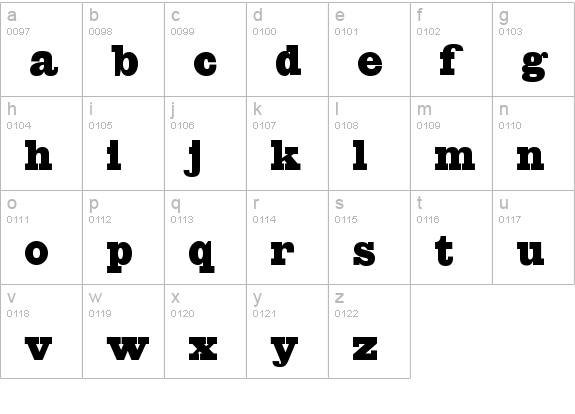
EgizianoClassic-BlackOL Font Details
EgizianoClassic-BlackOL is a stunning and versatile font that exudes elegance and sophistication. Its bold and sleek design makes it perfect for a wide range of projects, from invitations and logos to headlines and branding materials. This font features a unique blend of classic and modern elements, with its strong and confident letterforms that are meticulously crafted to perfection. The deep black color adds depth and intensity to any design, making it truly eye-catching and memorable. What sets EgizianoClassic-BlackOL apart is that it is not only a beautiful font, but it is also free! Yes, you read that right. This font is freely available to download at FontsMarket.com, a trusted source for high-quality fonts. Whether you're a professional designer looking to enhance your creations or an individual wanting to add a touch of sophistication to your personal projects, EgizianoClassic-BlackOL is the perfect choice. Its timeless appeal and versatility make it suitable for any occasion. So why wait? Download EgizianoClassic-BlackOL for free today and elevate your designs to new heights.